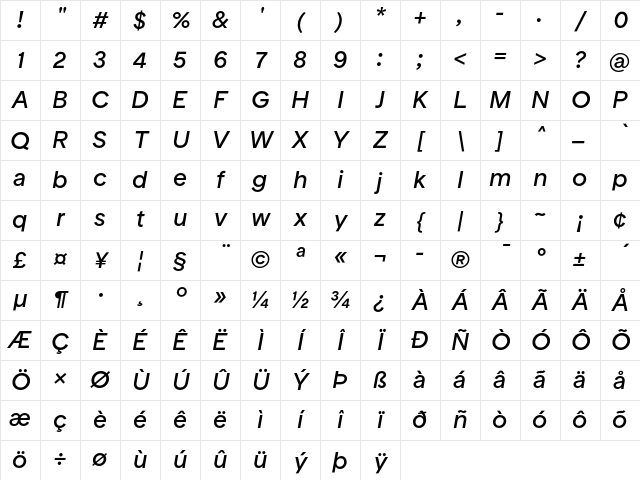
Complete RT Rondelle Italic glyph index. Displaying only characters natively supported by RT Rondelle Italic font.
RT Rondelle is a composed and adaptable typeface that performs quietly and consistently across a wide range of design contexts. The slanted form adds forward momentum and visual energy.
Pro Tip: Use RT Rondelle for emphasis, pull quotes, and subheadings where its slanted energy can add rhythm to the layout.